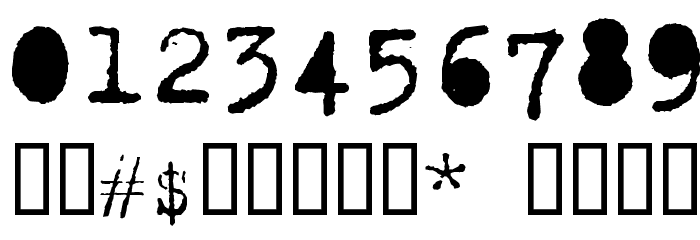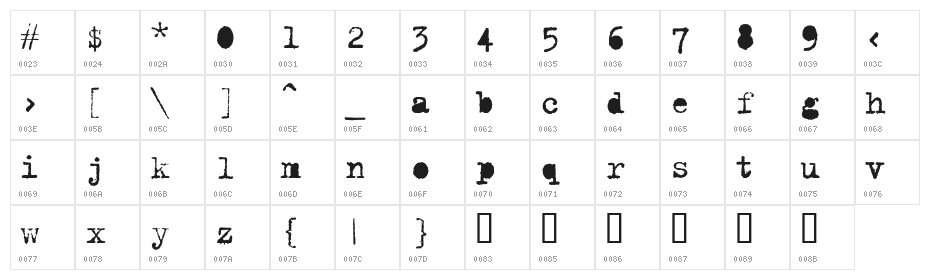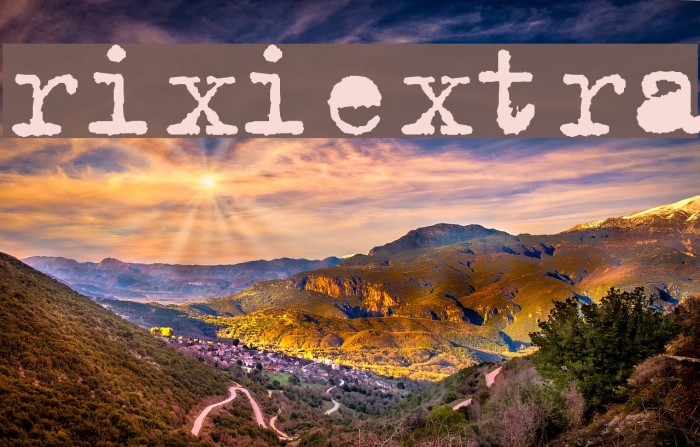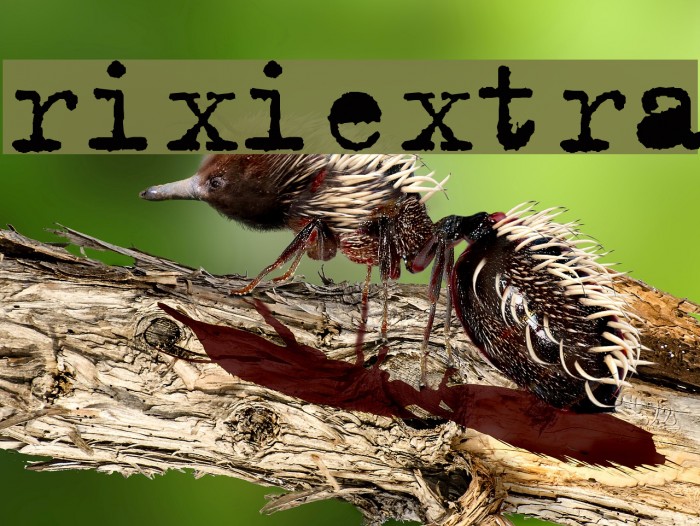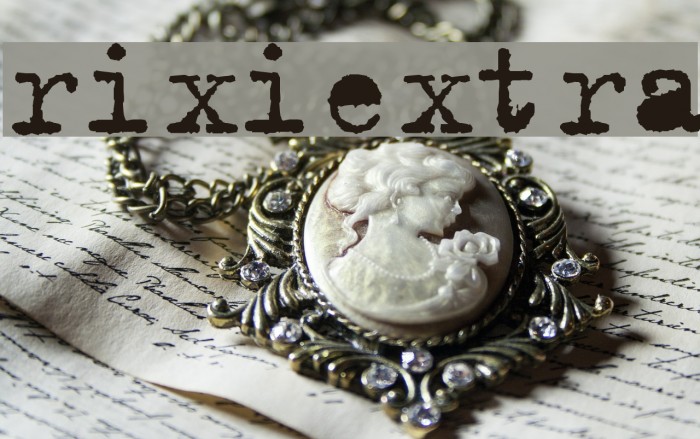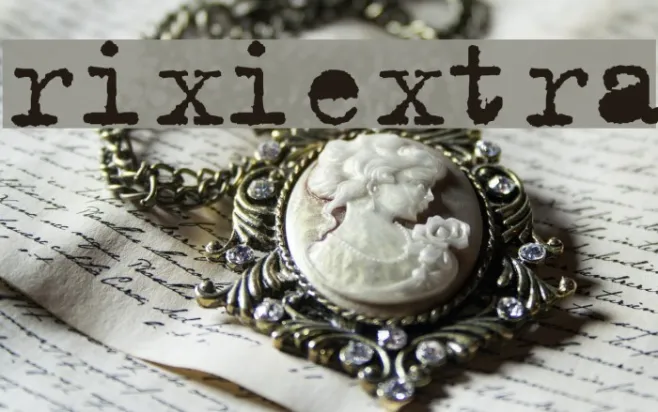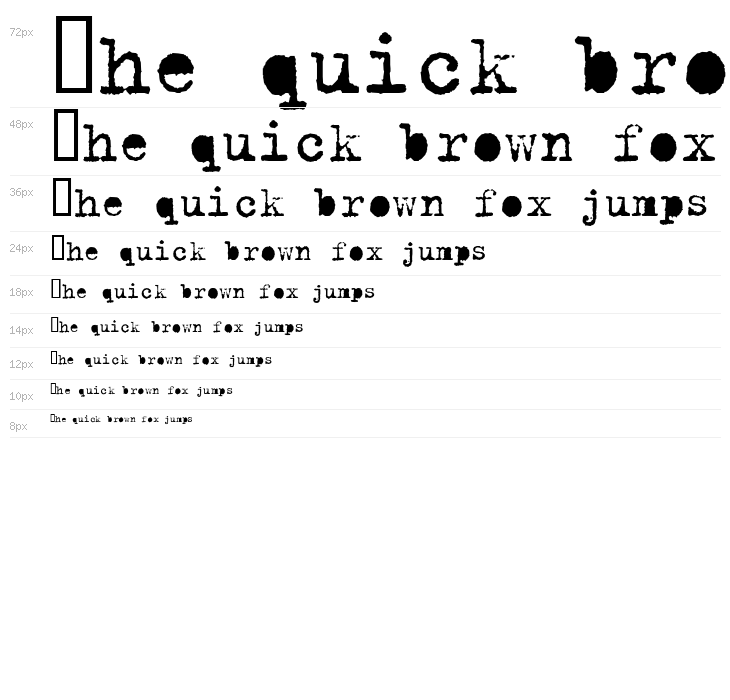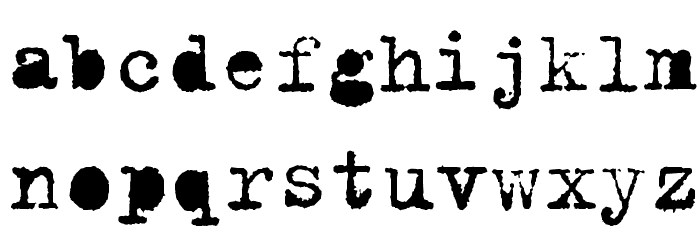
TrixieExtra Font
TrixieExtra Description
This font features a distressed, grunge aesthetic with a typewriter-like appearance. The characters are irregular and have a worn, textured look, giving them a vintage and rugged feel. The lowercase letters exhibit a mix of thick and thin strokes, adding to the font's unique character. The numbers and special characters maintain this distressed style, ensuring consistency across all glyphs. This font is ideal for projects that require a touch of nostalgia or a handmade, organic feel. Its distinctive style makes it stand out, perfect for creative and artistic applications.
| Proposed Projects | Ideal for vintage posters, album covers, artistic projects, and branding that requires a nostalgic or handmade feel. |